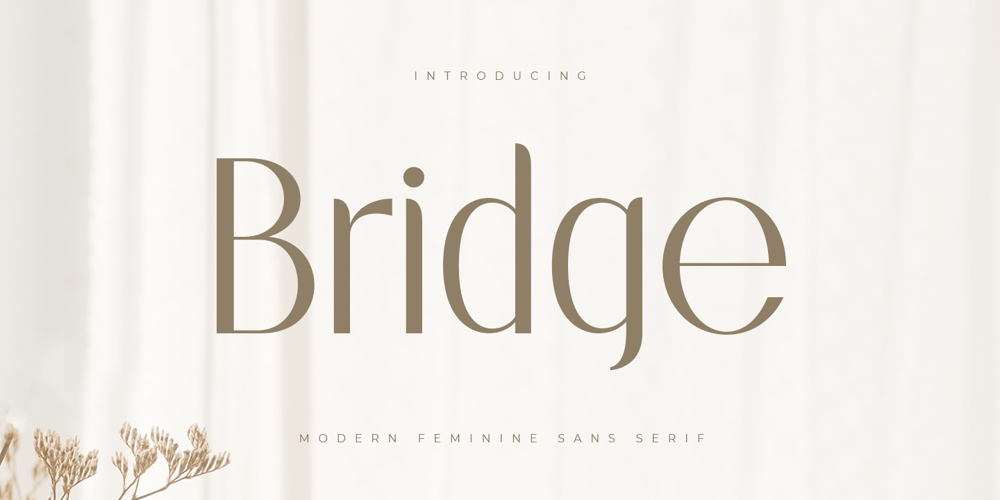
Bridge Style Font Family was designed by Zamroni Hamzah and published by Sensatype Studio. Bridge Style contains 1 styles and family package options. A Sans serif that we created special for elegant branding needs, with extra ligatures in unique shape will be ready to add value of your brand. It so nice to leverage designer or product owner that need solutions to make their design look more classy and modern. And specially for this font, We prepared any ligatures characters to help you create unlimited variations for your creative needs.Bridge Sans serif font ready with: Any options to get creative variations (combination of Ligatures) Preview as a inspirations that you can do with Bridge font Ready with Lowercase and Uppercase characters Wish you enjoy our font. ๐